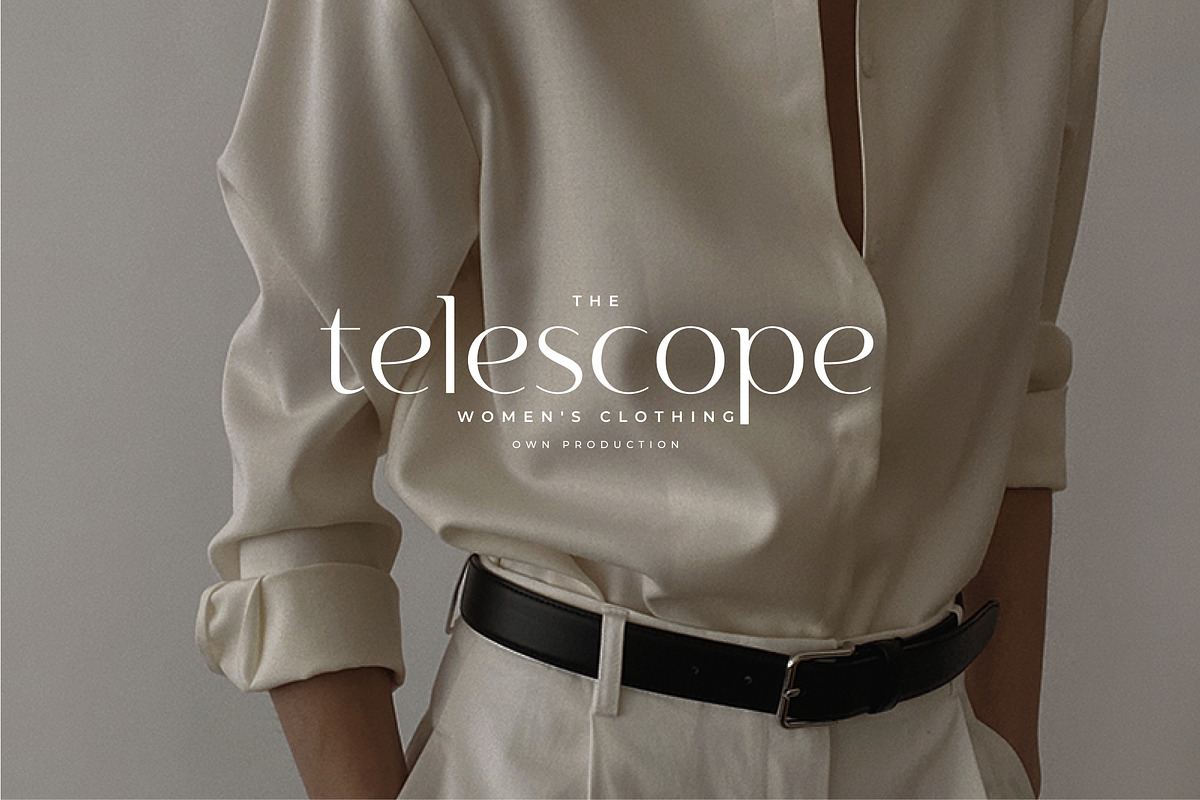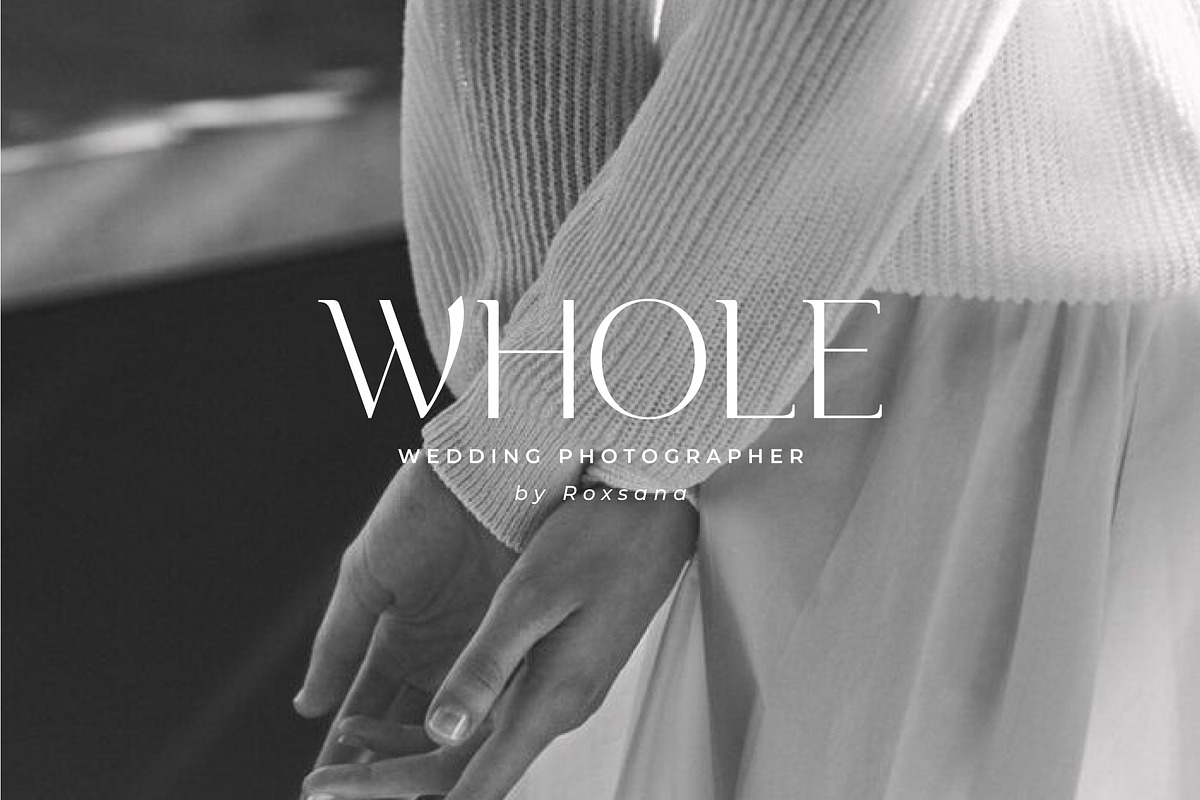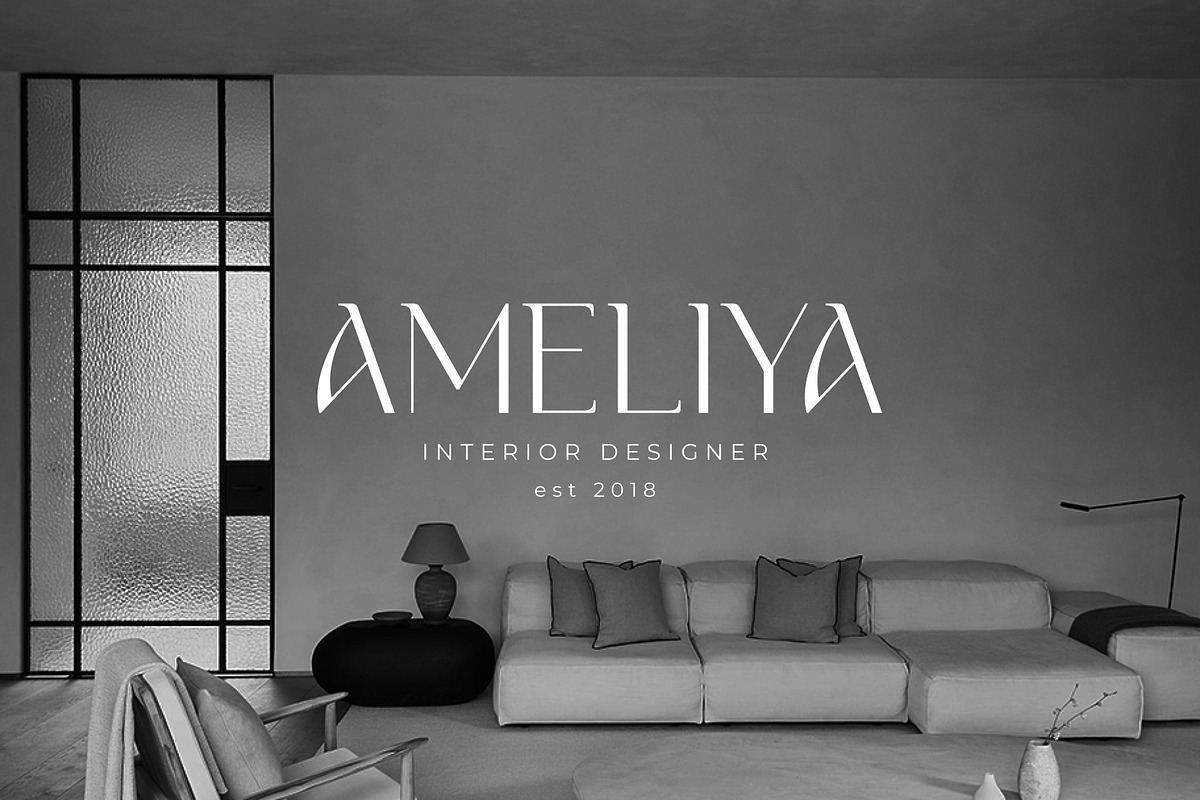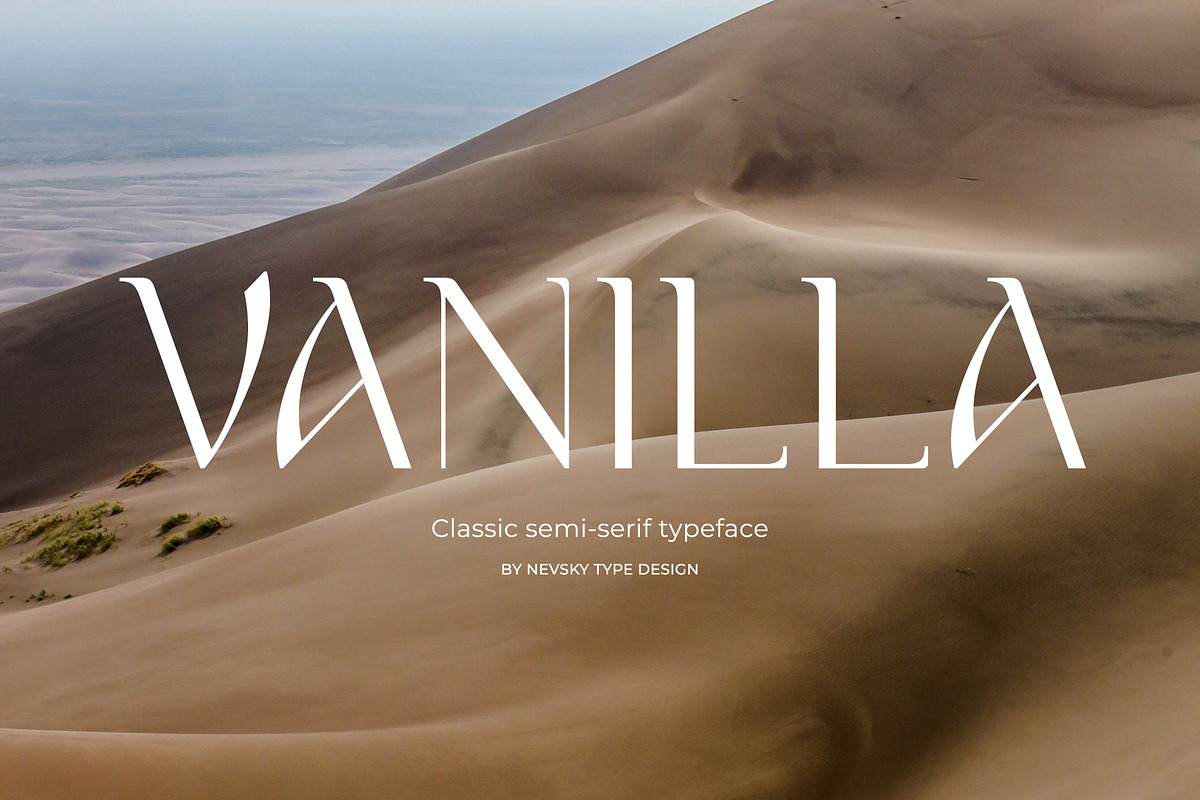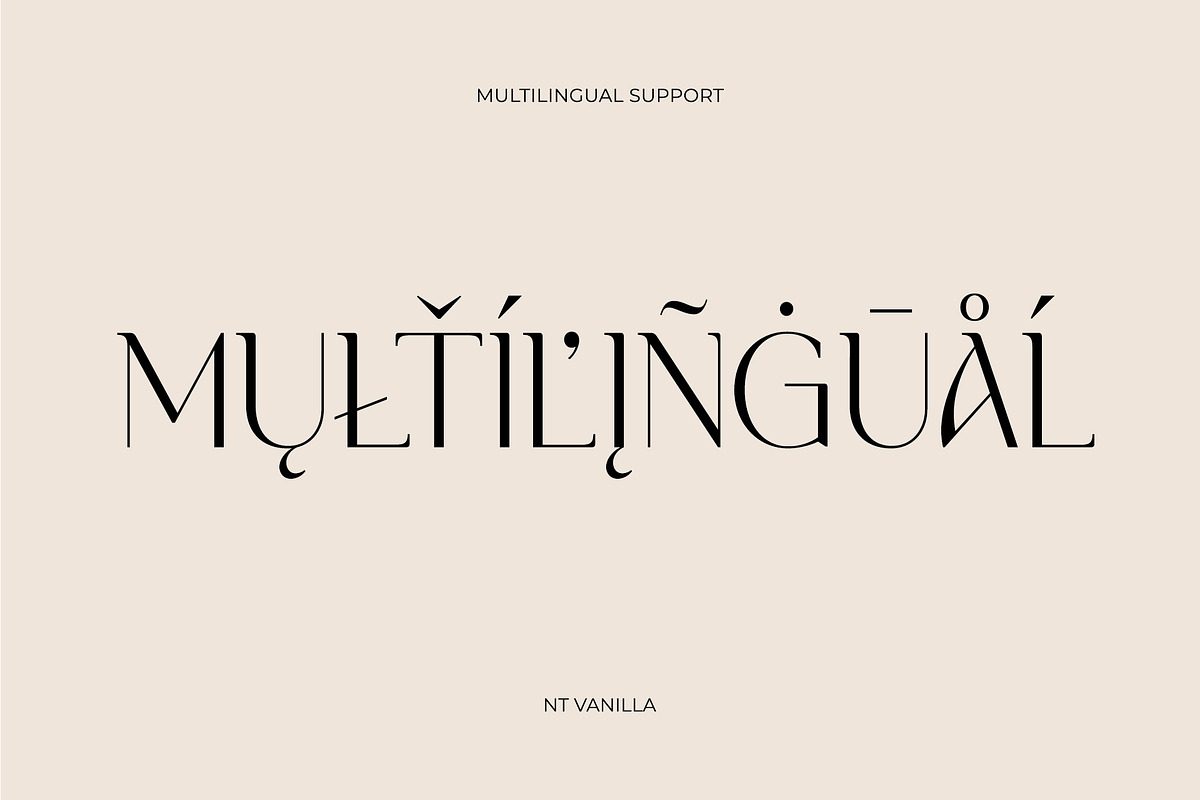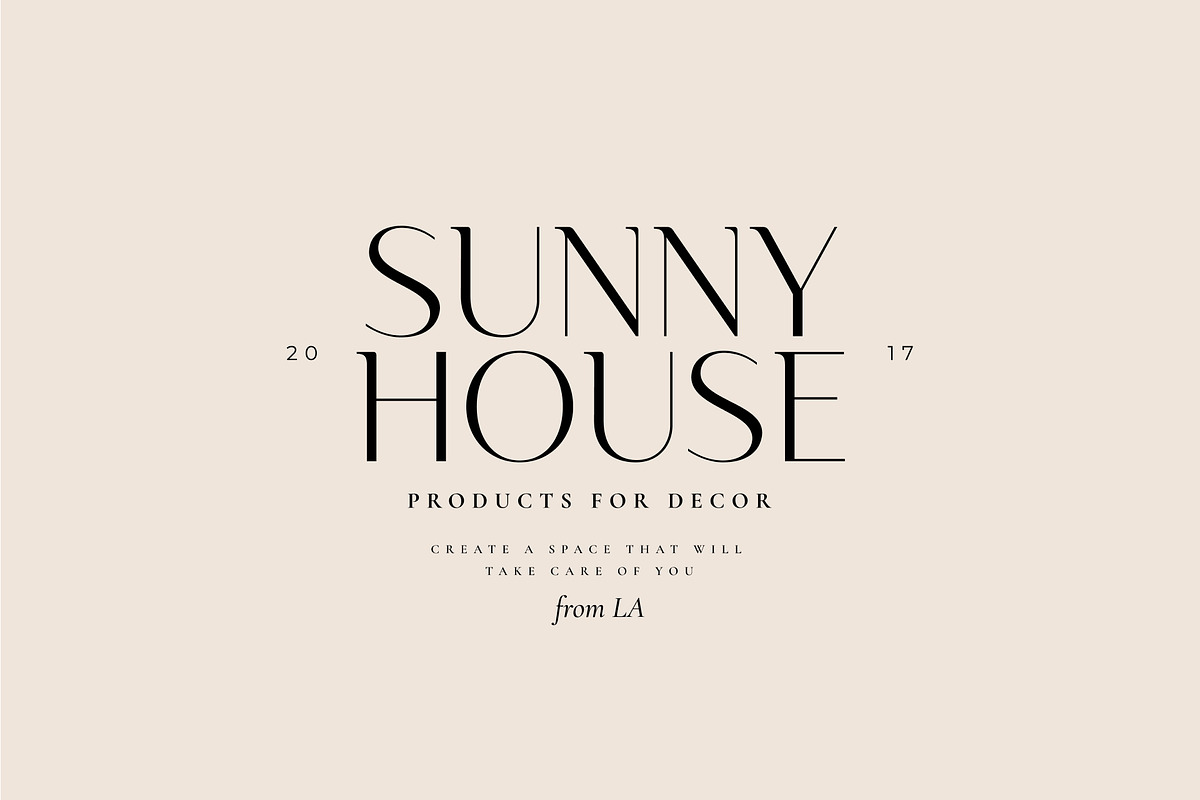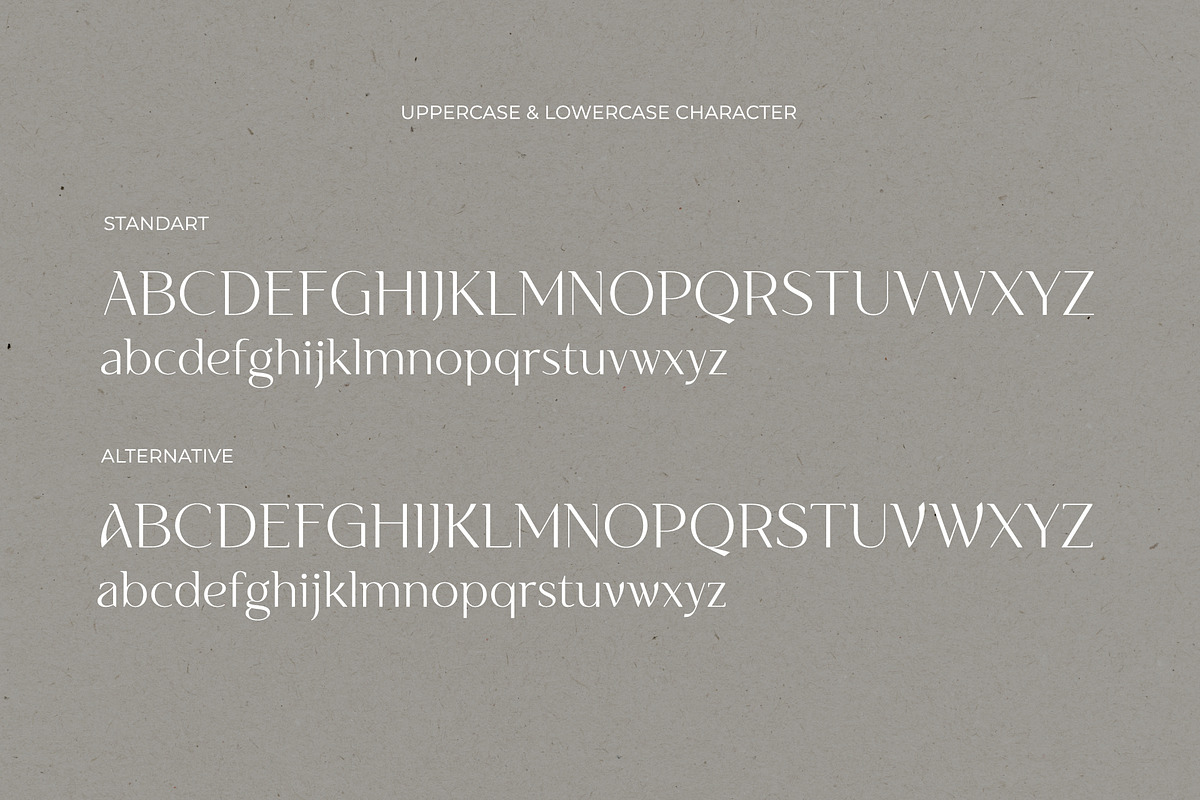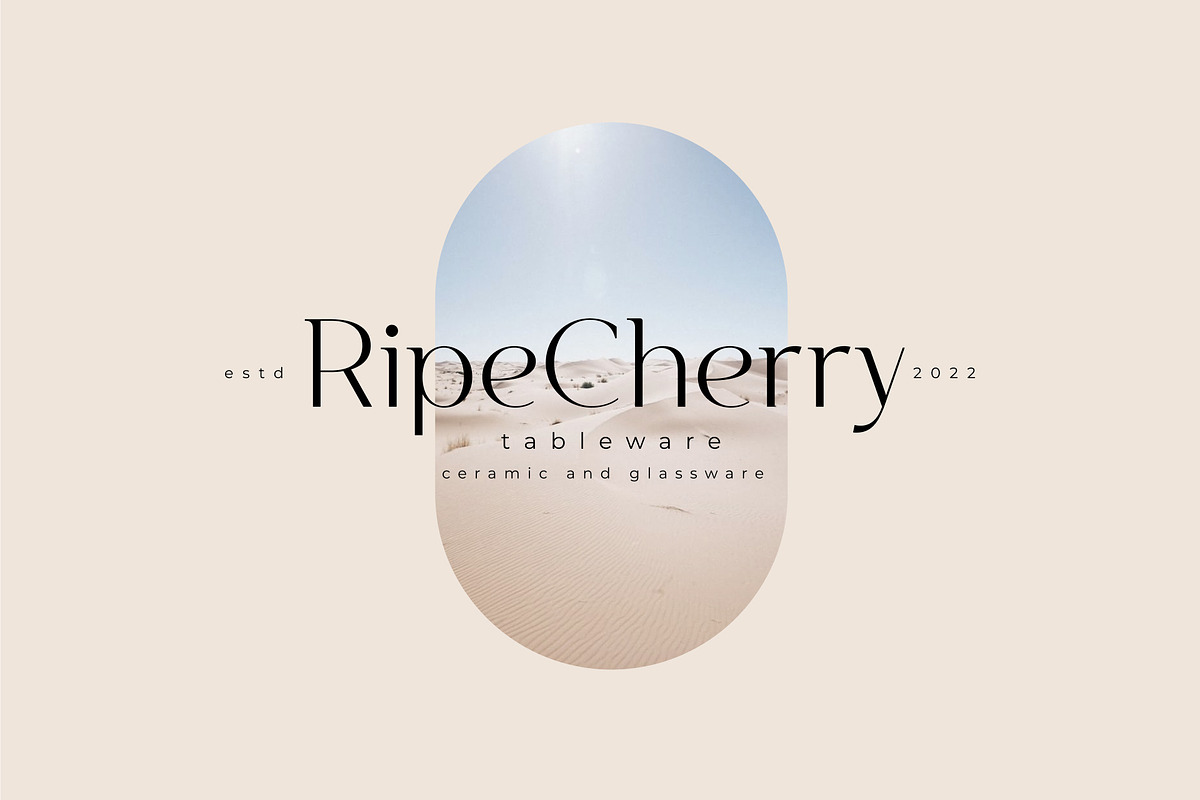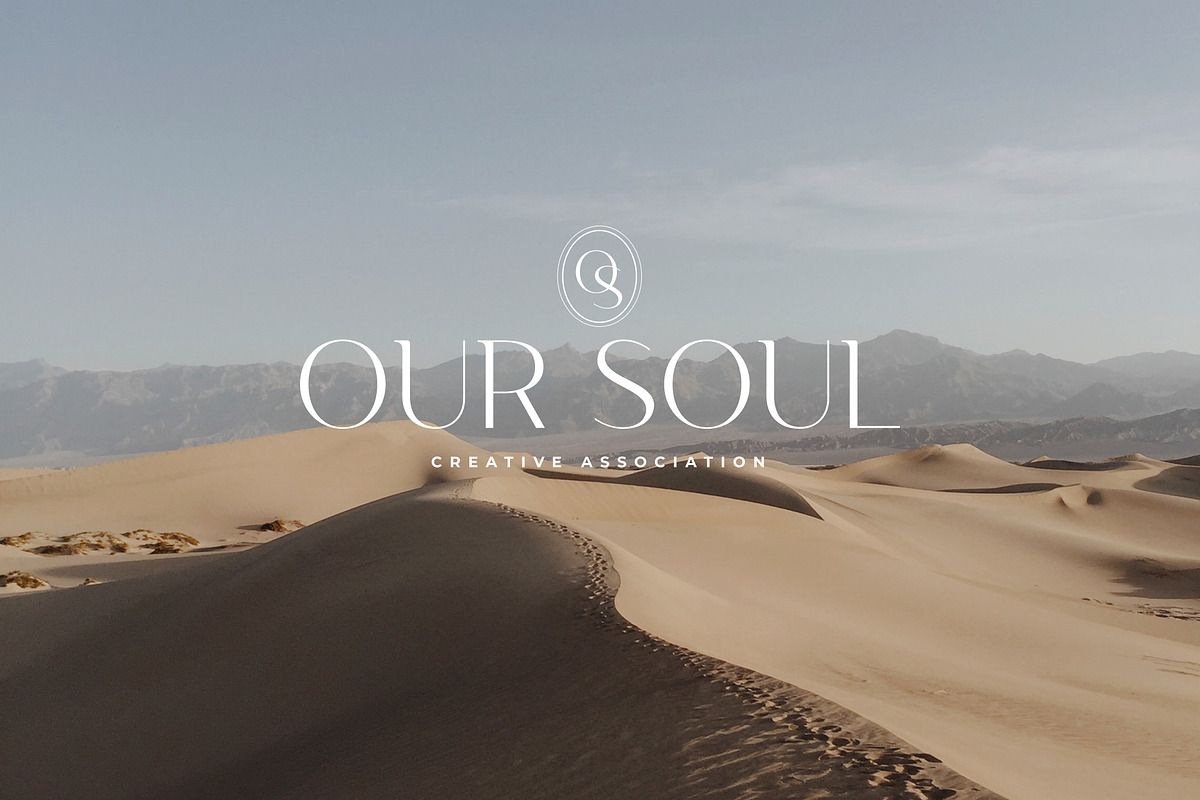
NT VANILLA
NT VANILLA is a new classic semi-serif font. This font needs to be in your collection and is perfect for your next design project.
NT VANILLA supports over 200 Latin-based languages.